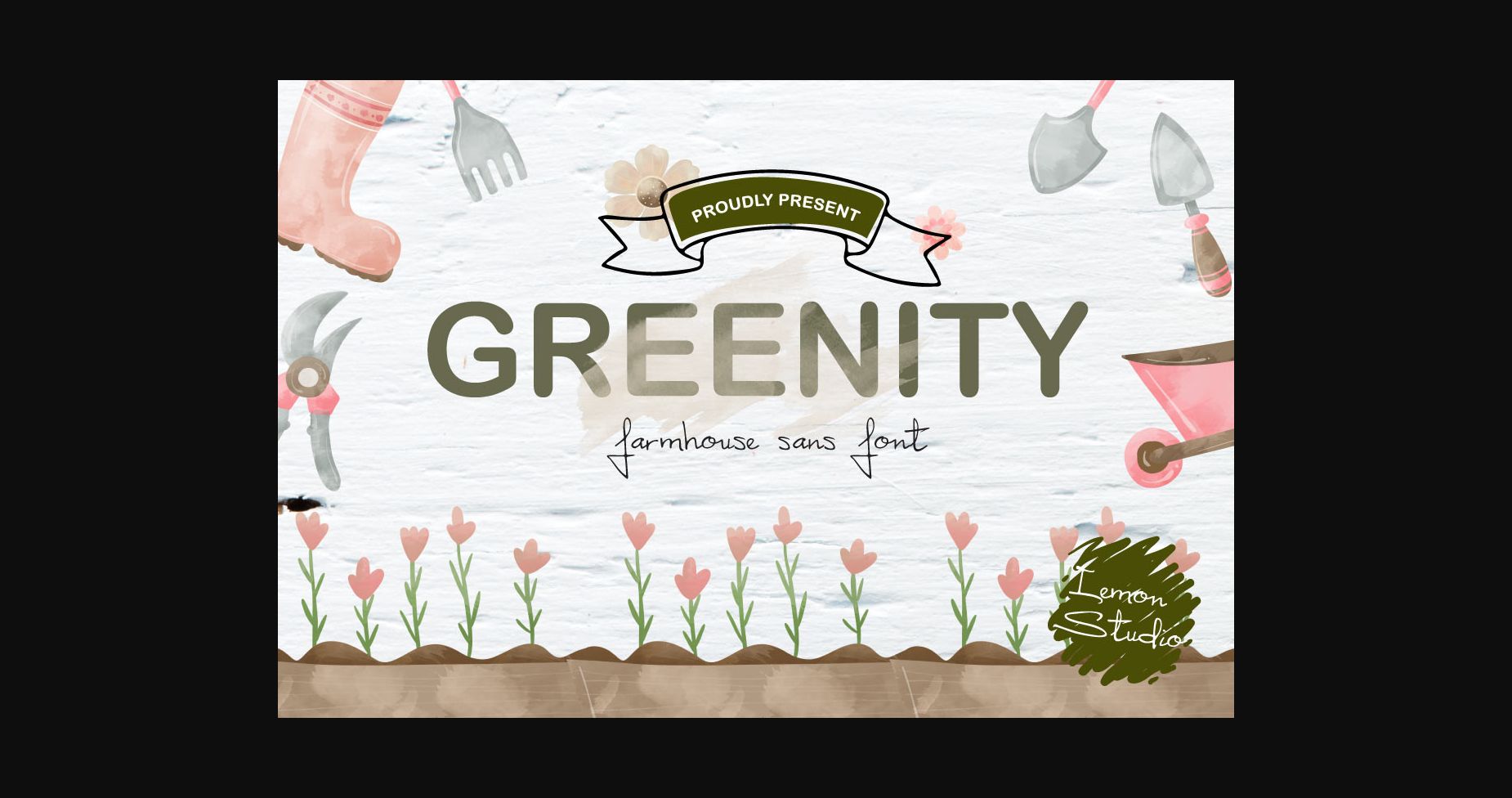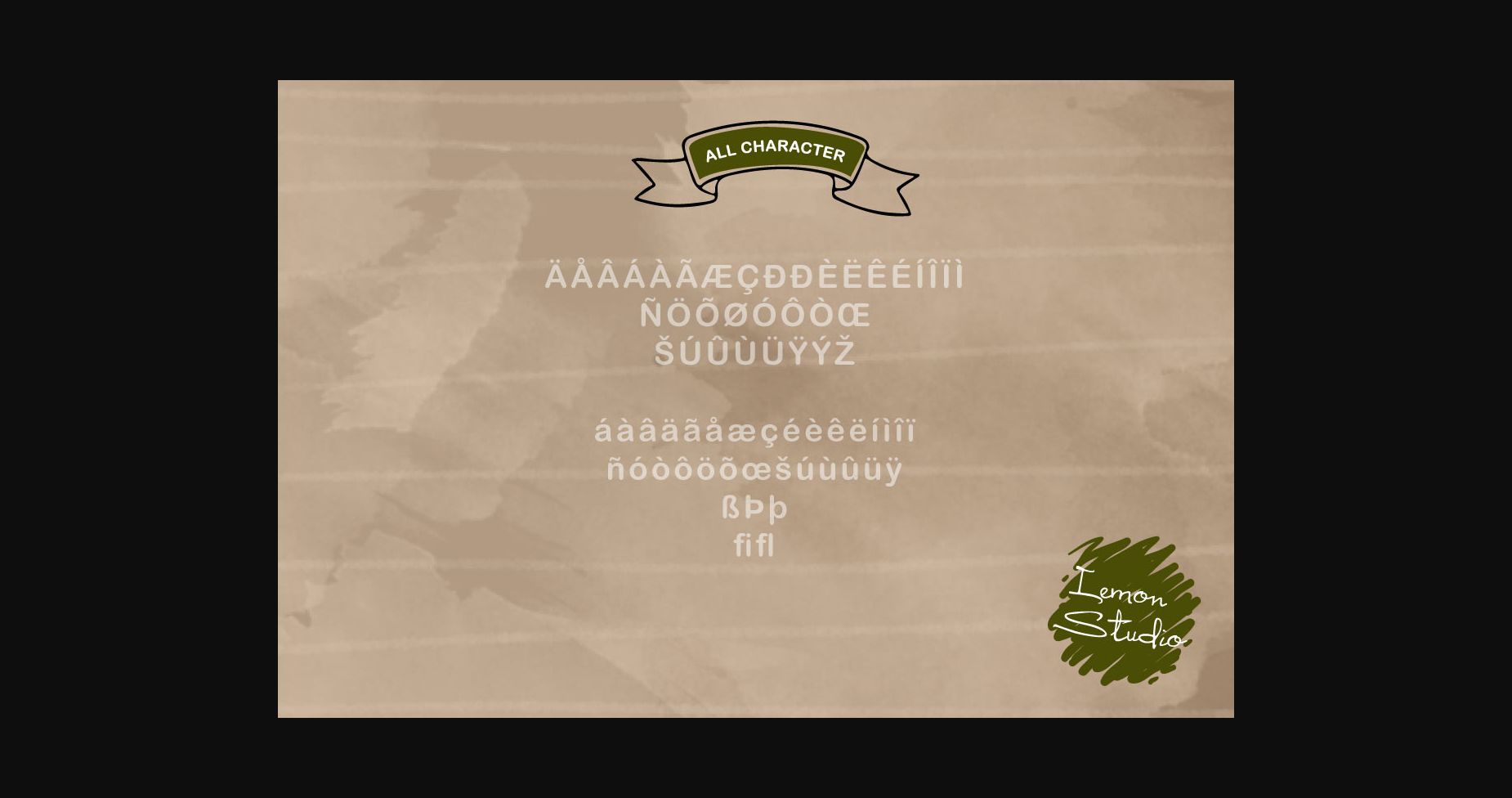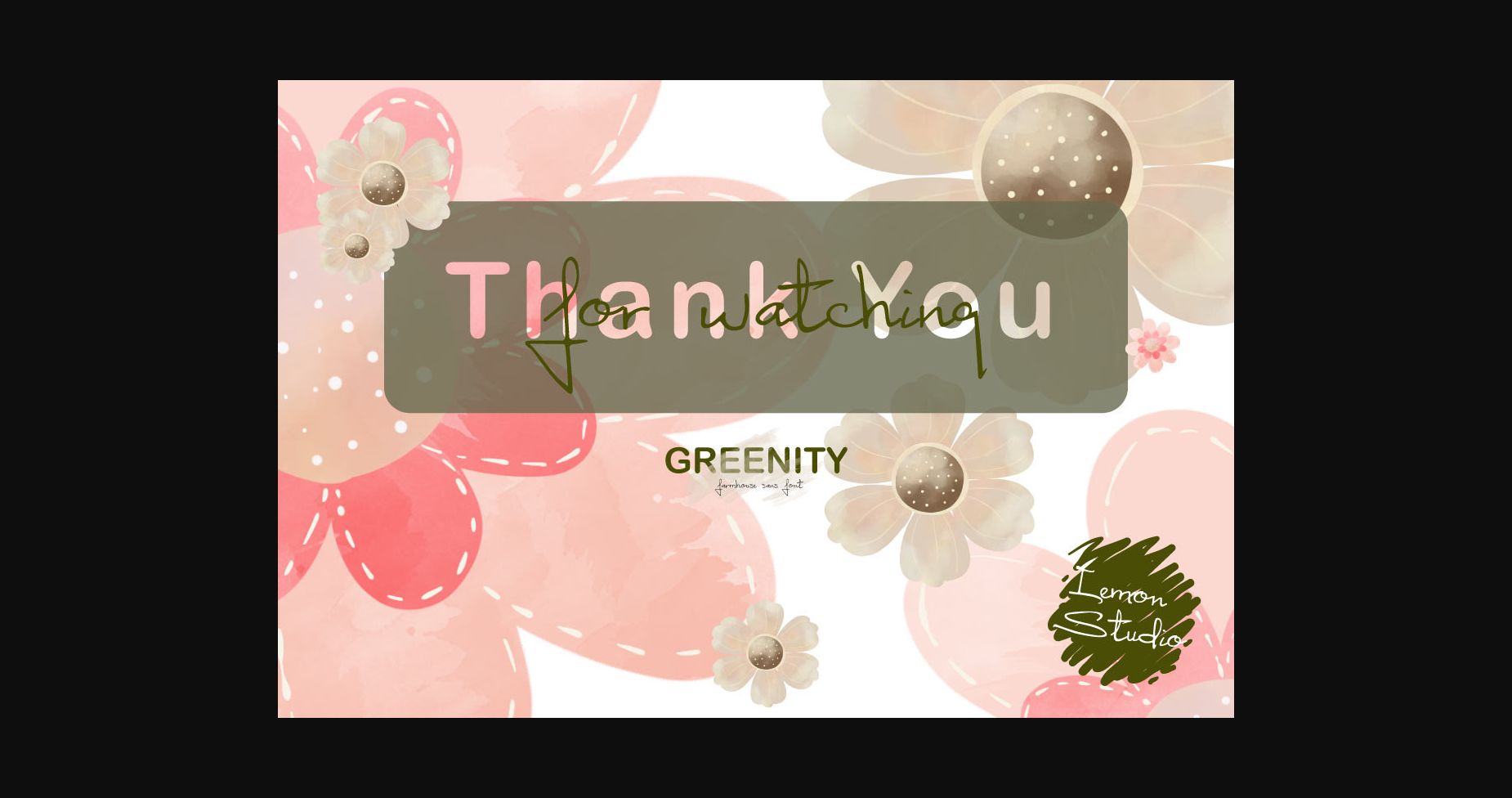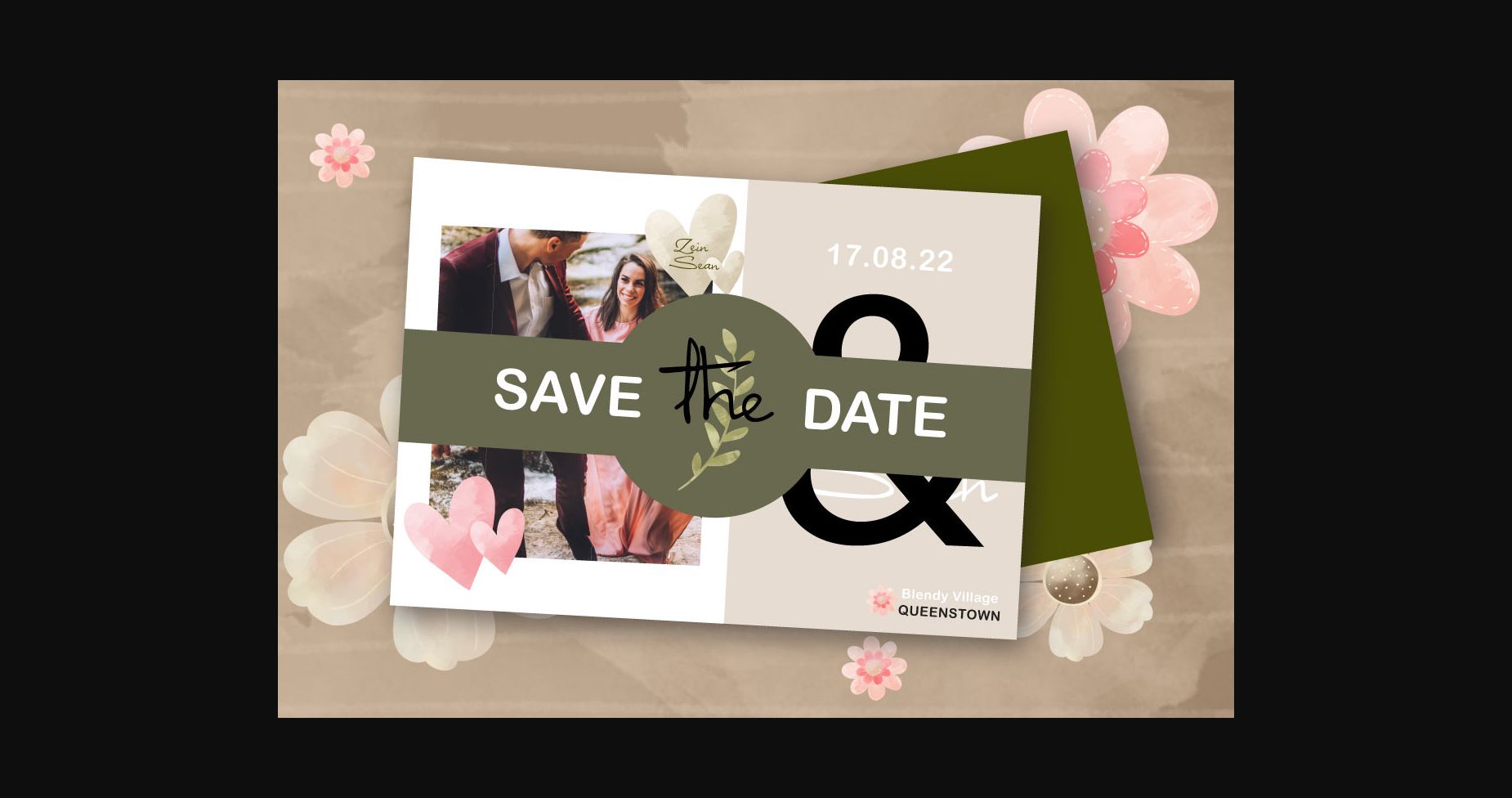
About Greenity Font
Greenity is a farmhouse sans serif font. Perfect for signs!
Greenity is a sans serif font that will compliment any script font. This works great in projects that use lots of text. It was made with simple farmhouse signs in mind but still look so cool. Perfect for headings font, logotype of a farmhouse, wedding invitation, tag, labels, or just to beautify your words.